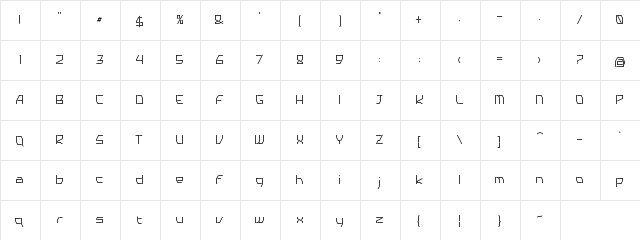
TYRO Regular
Design Context for TYRO Typeface
TYRO takes a measured approach to typography — its balanced proportions and neutral character make it a reliable workhorse for both digital and print work.